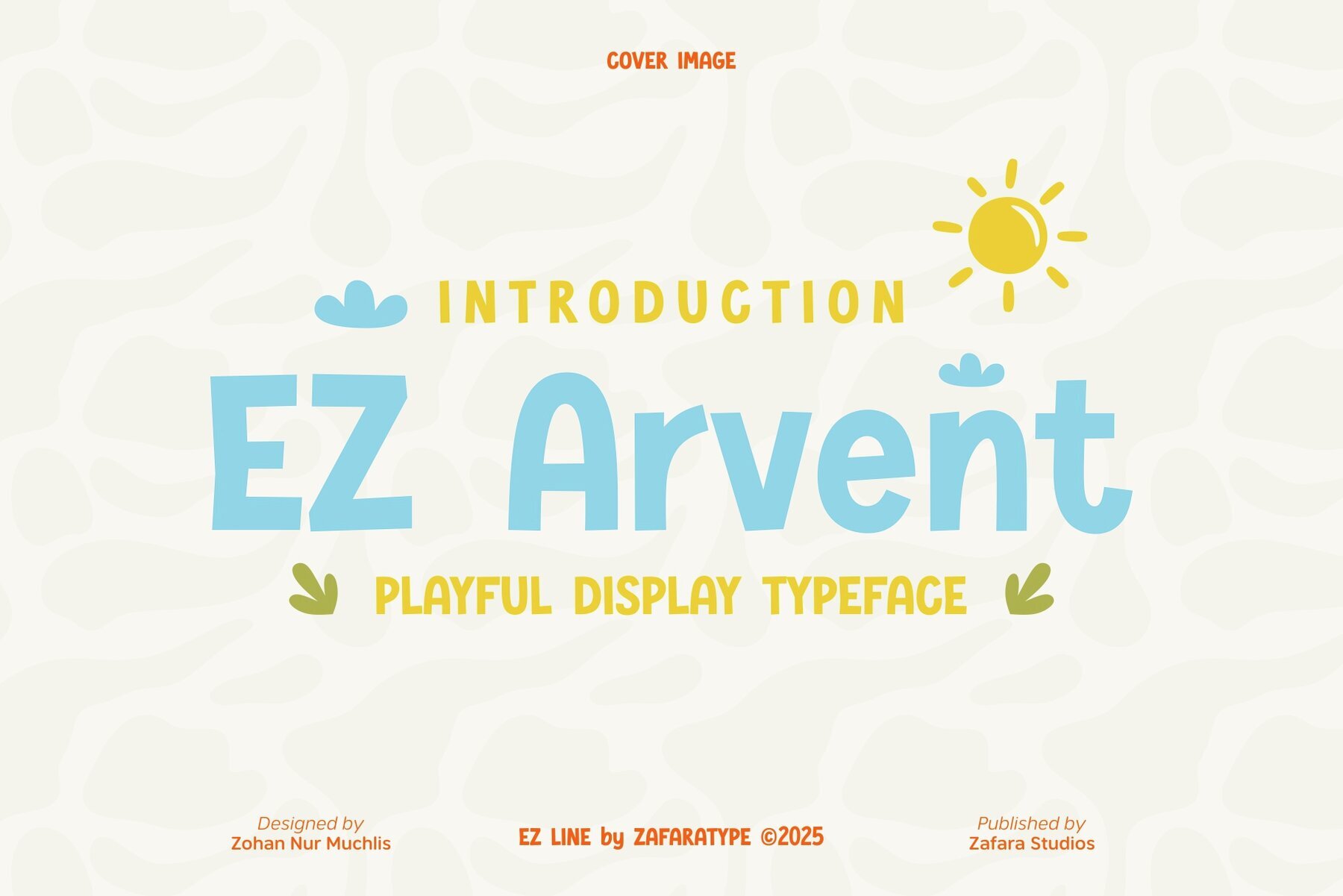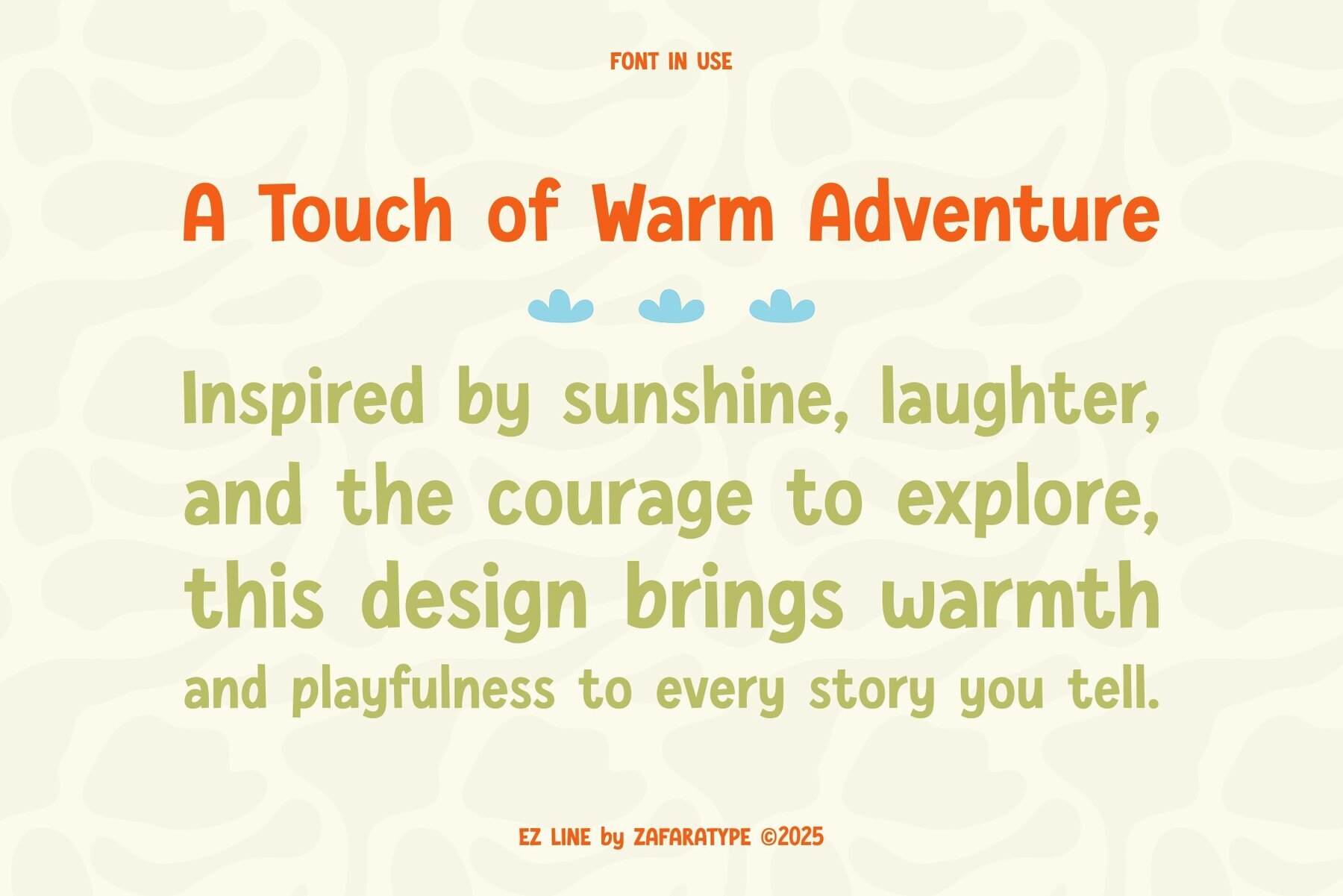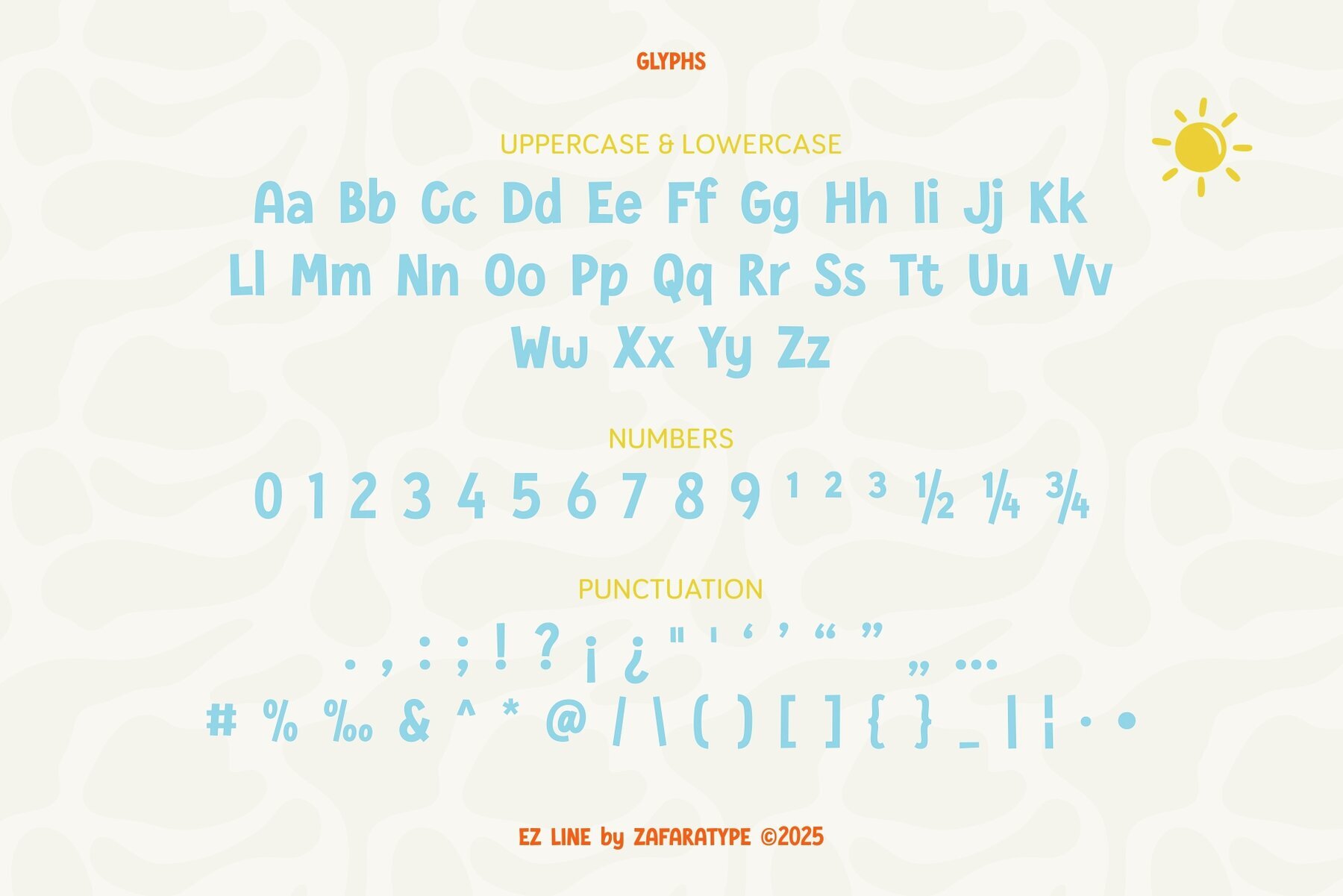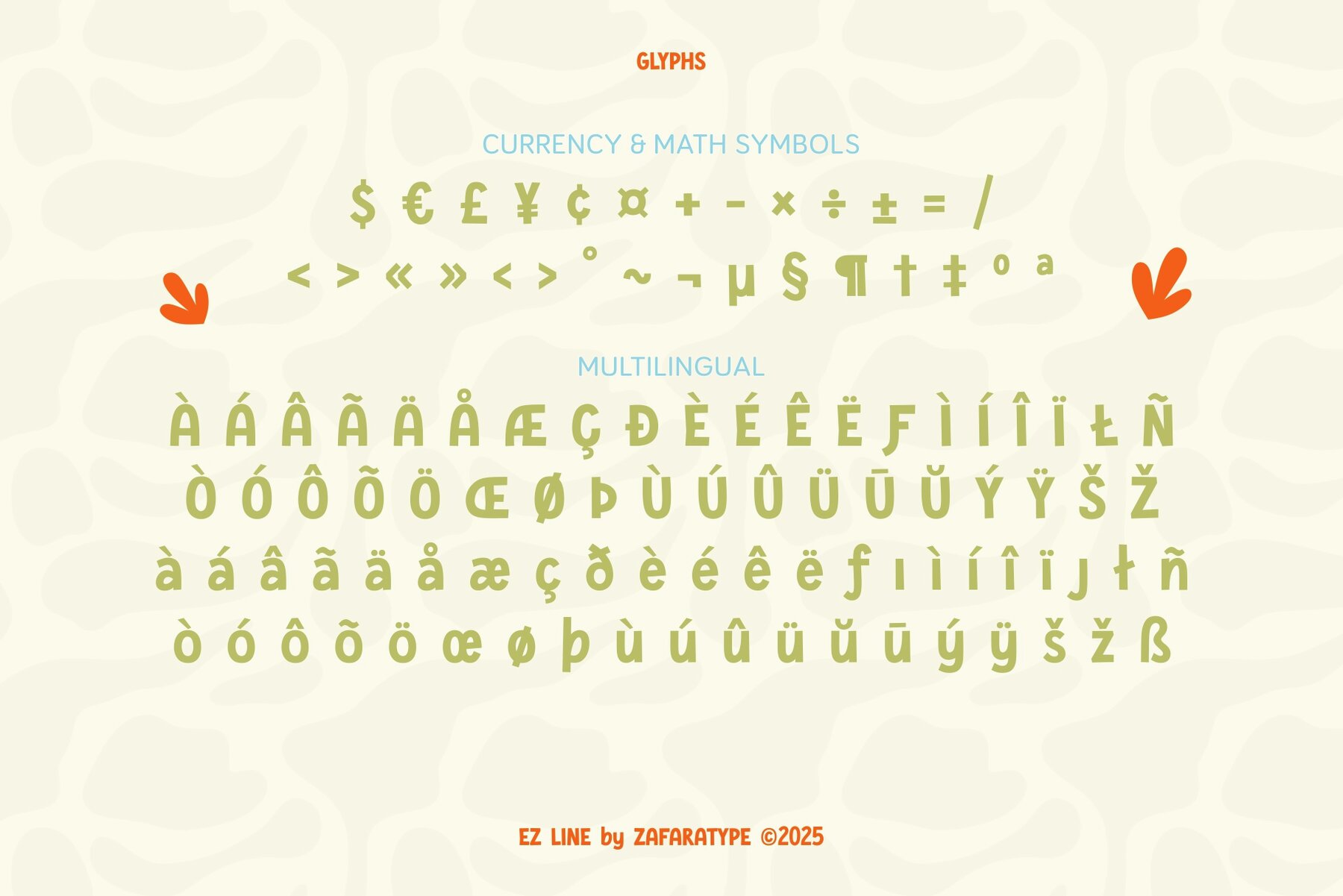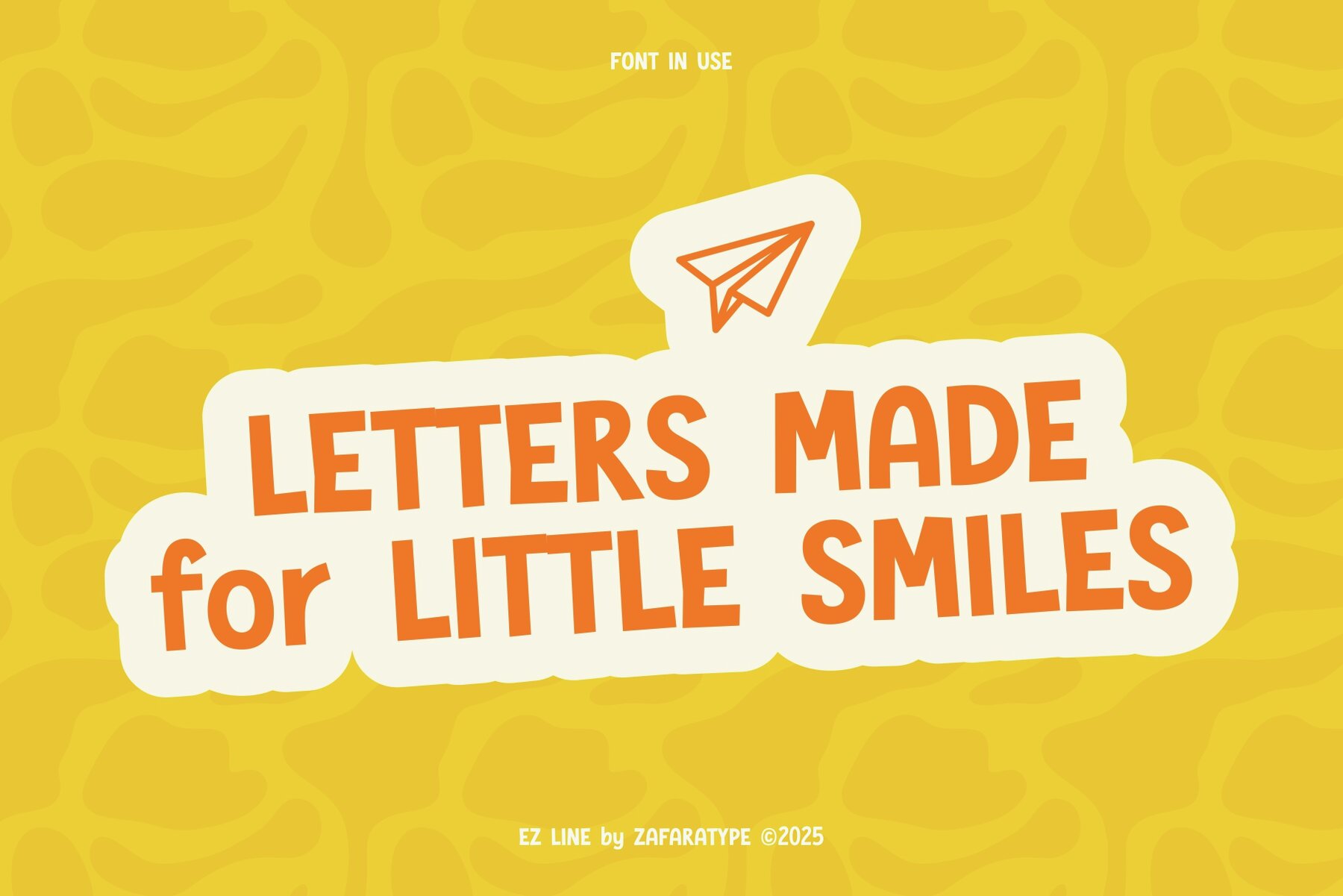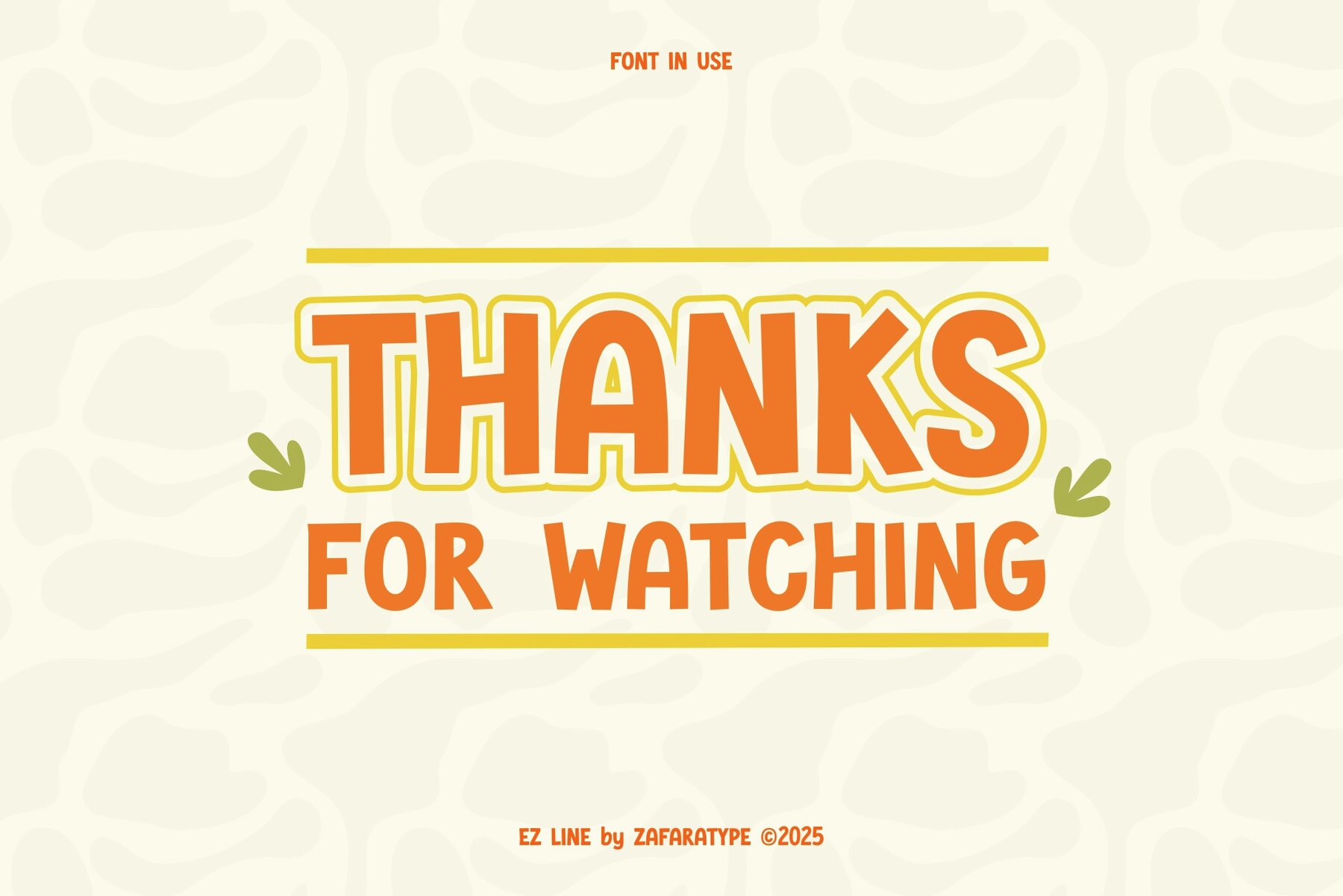
EZ Arvent Font
EZ Arvent
EZ Arvent captures the spirit of retro cartoons and classic children's books with its cheerful, hand-crafted style. The playful letterforms and lively rhythm create an inviting look that stands out in branding, packaging, posters, comics, games, and educational projects. This display font brings warmth and creativity to any setting where a touch of joy is needed. EZ Arvent is well-suited for designers who value both charm and functionality in playful display typography.EZ Arvent Display Font